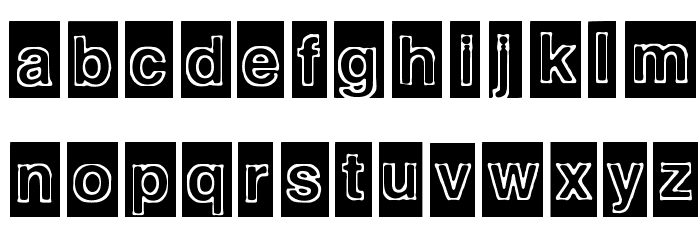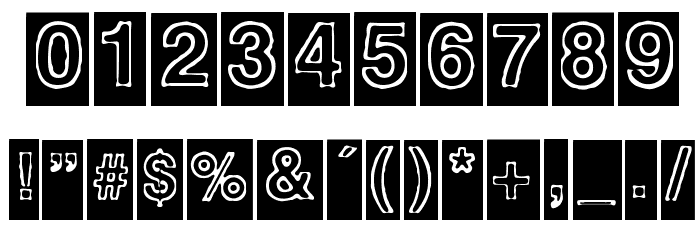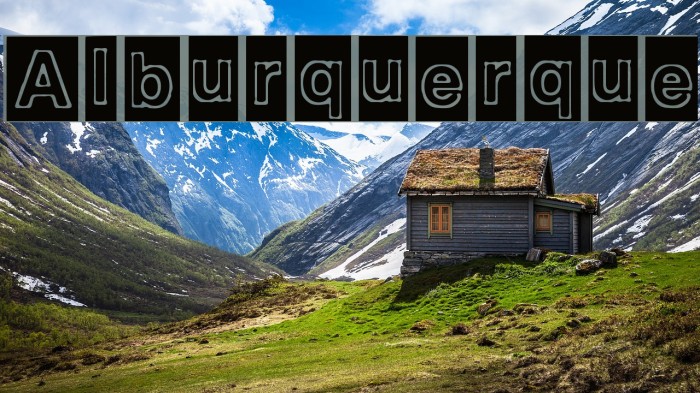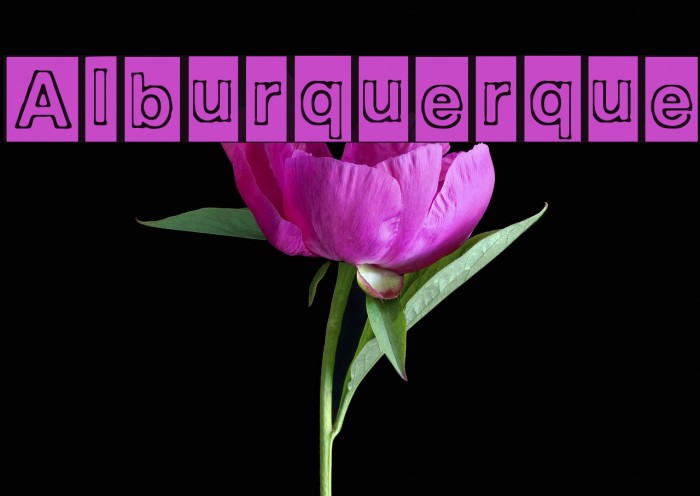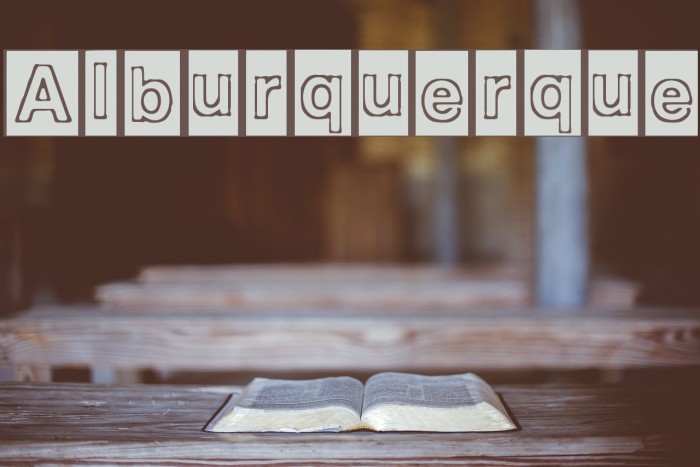
Alburquerque Font
This font features a bold, outlined style with a modern and eye-catching appearance. Each character is enclosed within a solid black square, creating a striking contrast that enhances readability. The uppercase and lowercase letters maintain a consistent width, while the numbers and special characters are designed to match the overall aesthetic. The font's geometric structure and clear lines make it suitable for various design applications where a bold statement is desired.
A bold, outlined font with a modern and geometric style.
- Proposed Projects: Ideal for posters, headlines, logos, and branding materials where a strong visual impact is needed.